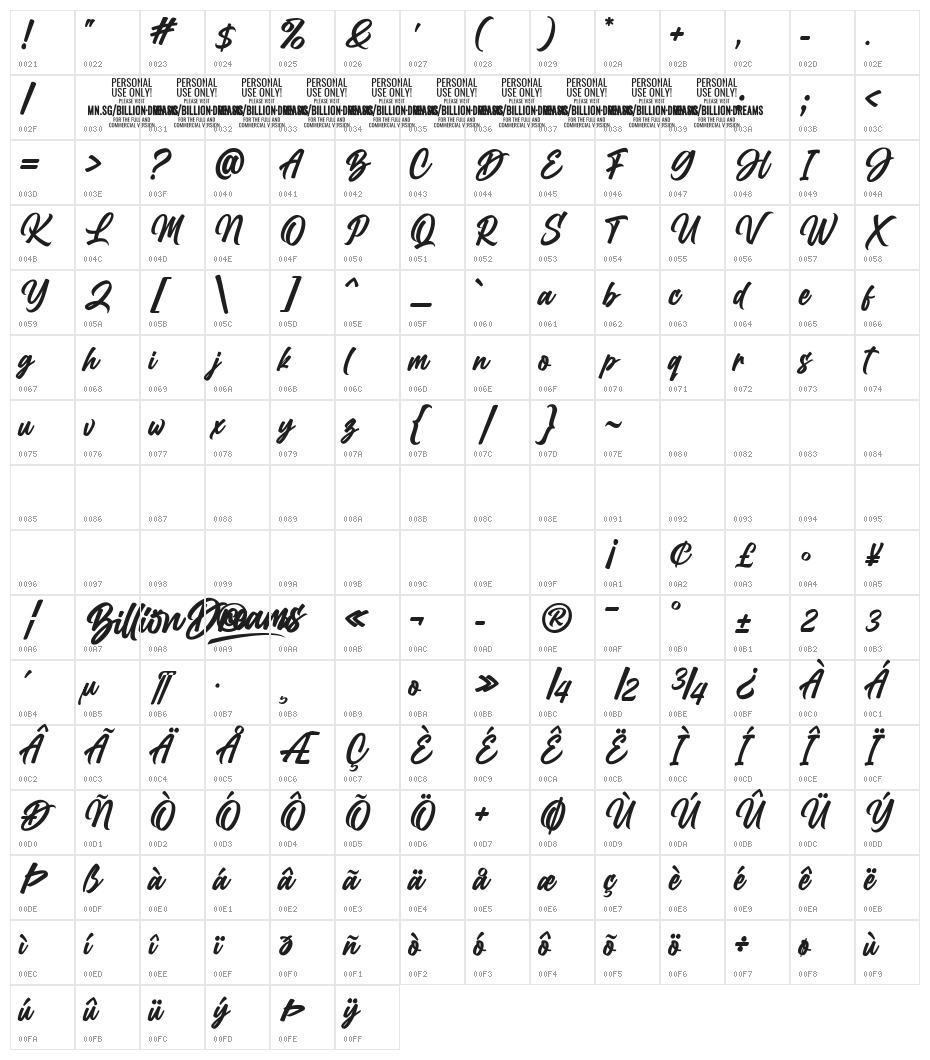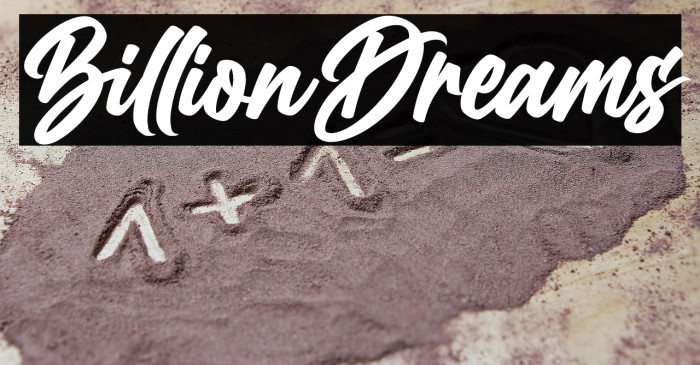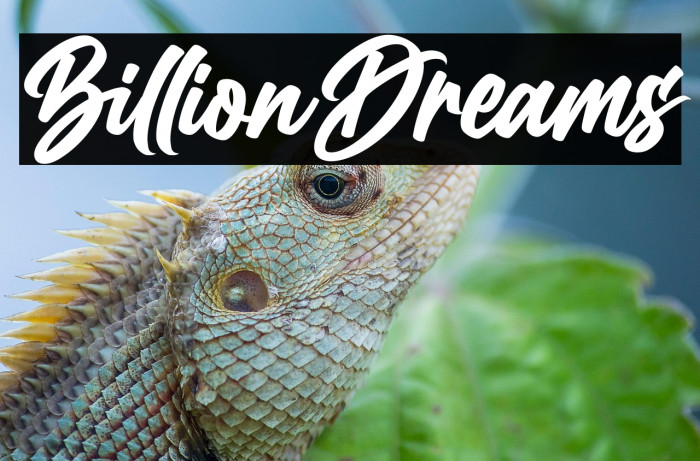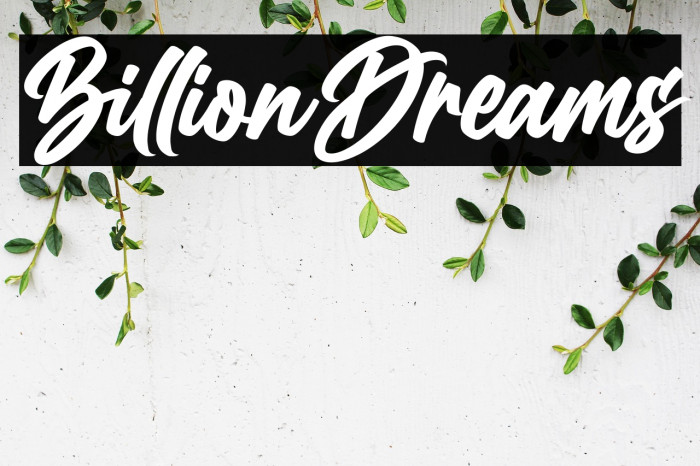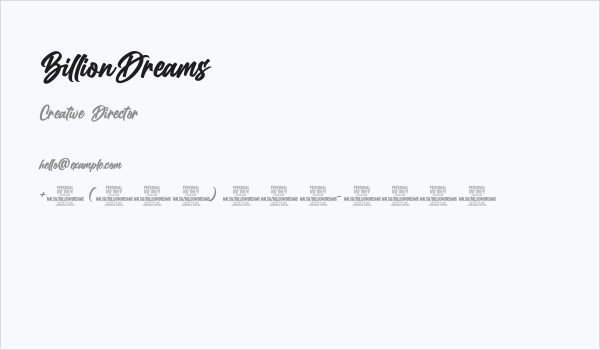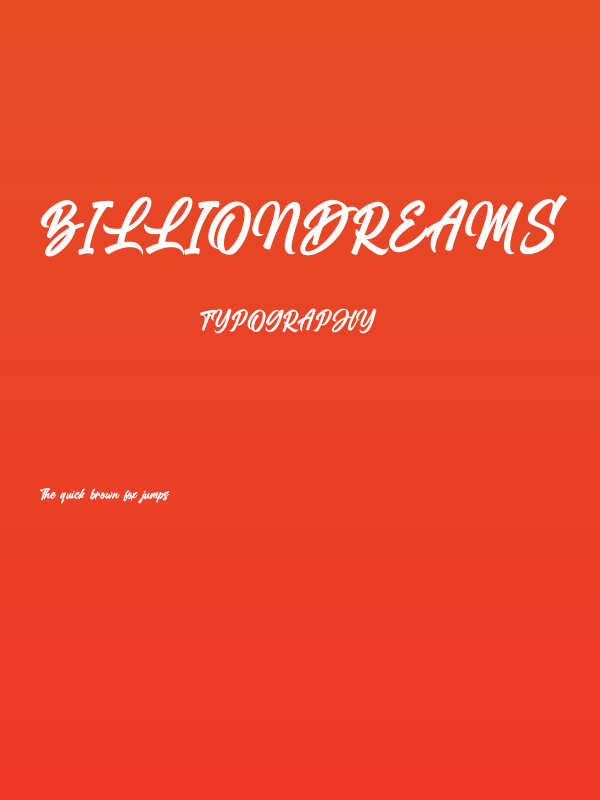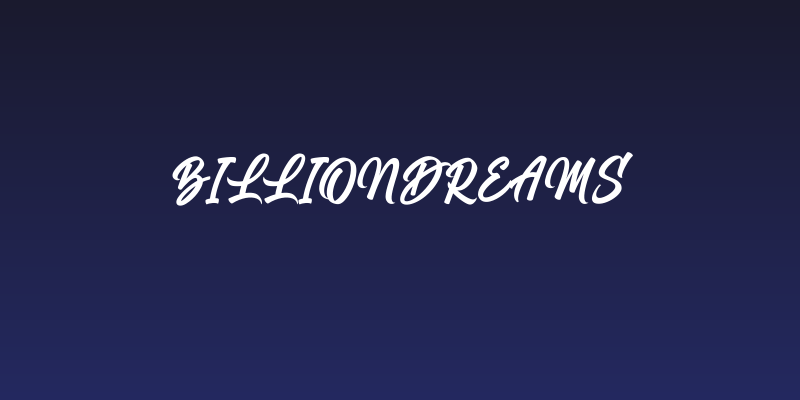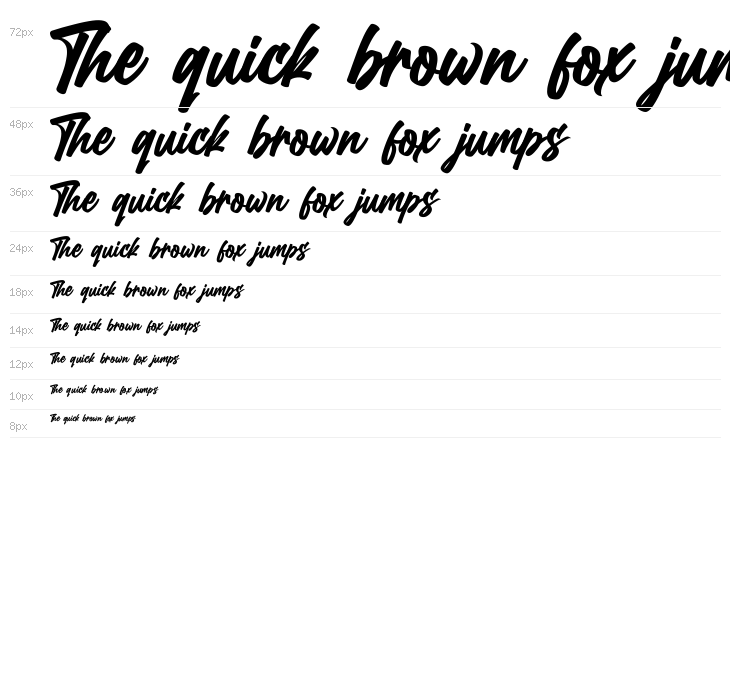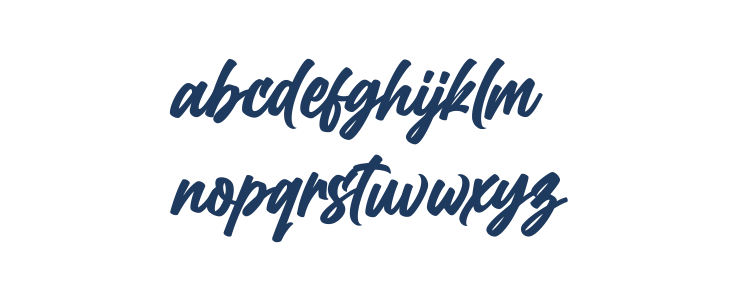
BillionDreams Font
BillionDreams Description
This font features a bold, cursive style with smooth, flowing lines that give it a dynamic and elegant appearance. The characters are interconnected, creating a sense of continuity and movement. The uppercase letters are slightly larger and more pronounced, while the lowercase letters maintain a consistent flow. The numerals and special characters are designed to match the overall cursive style, adding to the font's cohesive look. This font is ideal for projects that require a touch of sophistication and flair.
Overall StyleElegant
Use CaseLogos, Invitations, Branding
Proposed ProjectsIdeal for wedding invitations, branding, logos, and elegant packaging designs.